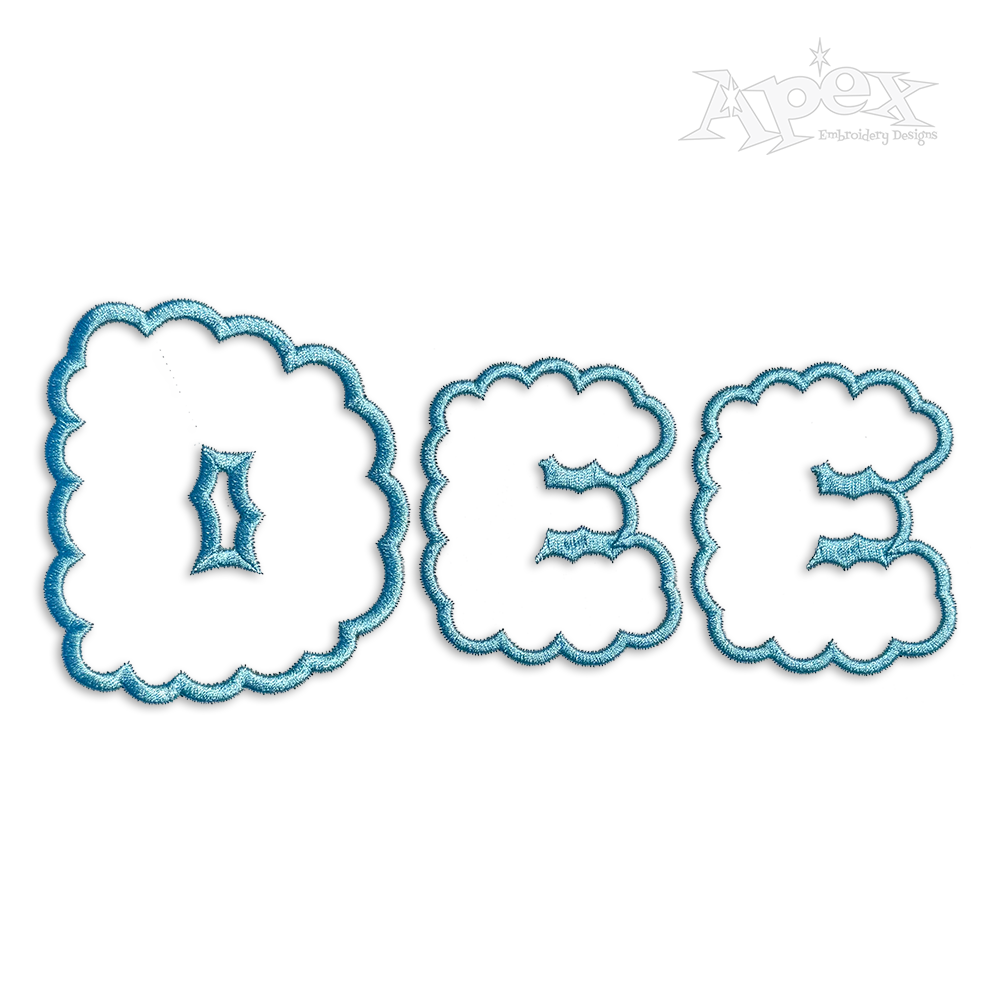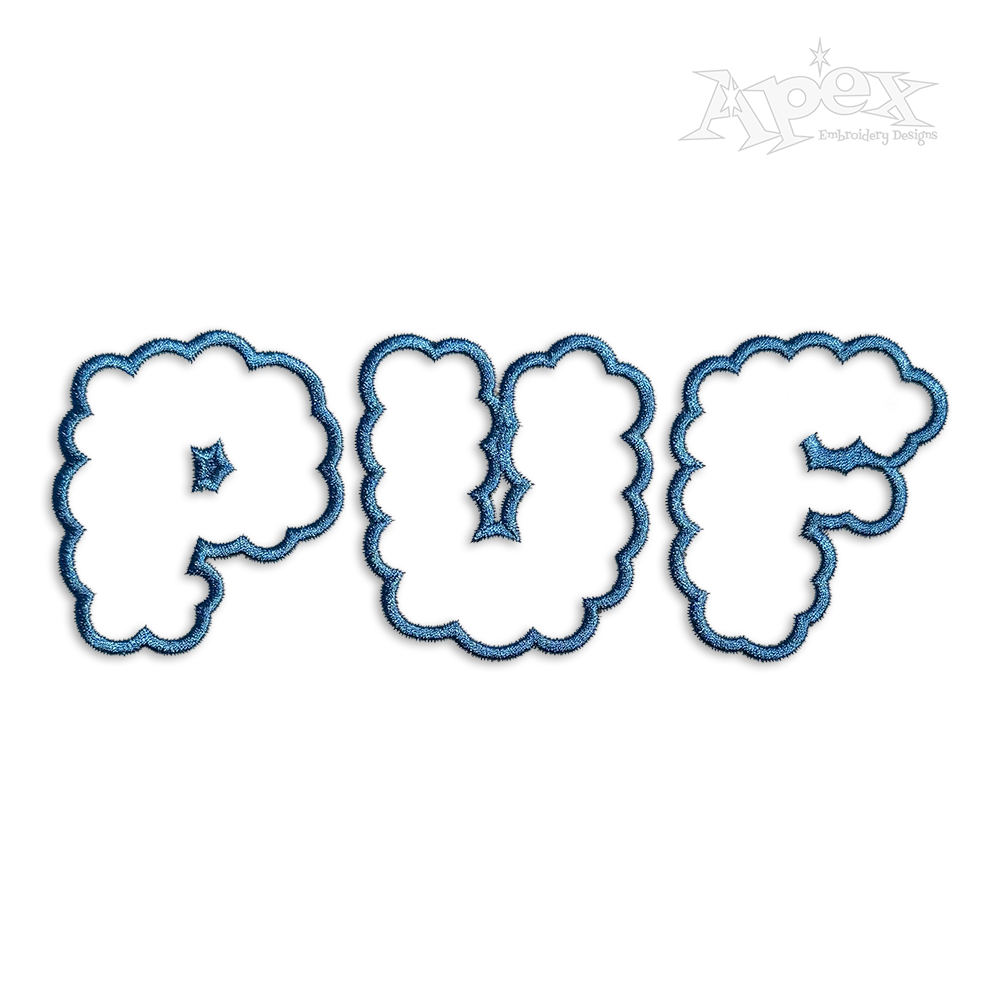
Cloud Embroidery Font
Inspired by billowing summer skies and the playful, graphic energy of modern pop typography, the Cloud Embroidery Font was designed to bring pure buoyancy to your needlework. In digitizing this collection, our studio sought to capture the soft, marshmallow-like contours of drifting clouds while retaining sharp structural integrity on the hoop. Each character blossoms with rounded, pillowy outlines that feel both effortlessly youthful and artfully composed, elevating everyday textiles into tactile, personalized statements full of levity and charm.
Project Ideas for Cloud Embroidery Font
With its friendly, pillowy architecture, this alphabet adapts effortlessly across casual streetwear, nursery keepsakes, and cheerful resort accessories:
- Custom Streetwear & Loungewear: Transform heavyweight fleece hoodies, relaxed drop-shoulder crewnecks, and ribbed knit beanies with custom names or playful monograms.
- Heirloom Nursery Essentials: Stitch dreamy monograms onto quilted crib blankets, linen diaper caddies, and plush waffle-weave baby towels.
- Bespoke Resort & Beach Gear: Embellish oversized terry-cloth pool towels, canvas boat totes, and sun visors with vibrant, sunny lettering.
- Personalized Gifting: Create charming travel cosmetic bags, bridal party sleepwear sets, and custom birthday keepsakes that feel delightfully custom-made.
The volumetric quality of the Cloud Embroidery Font gives it an arresting visual presence, making thoughtful placement essential to let the design breathe:
- Center Chest: Place names or single-letter monograms directly across the center chest of sweatshirts and tees for a balanced, casual silhouette.
- Off-Center Corner Diagonal: Orient a single initial diagonally across the lower corner of a linen throw, accent pillow, or tote bag for modern visual interest.
- Back Yoke or Shoulder Arc: For larger 4-inch letters, arrange words along a subtle arch across the upper back of denim jackets or windbreakers.
- Brim & Cuff Accents: Utilize the 2-inch size tucked along the folded cuff of a beanie or above the pocket hem of a denim shirt for an understated artisan detail.
Cloud Embroidery Font Craft & Letterform Details
Translating inflated, cloud-like illustrations into flawless embroidery requires exceptional digitizing nuance. Rather than relying on simple stroke expansions, every curve in the Cloud alphabet has been sculpted with intentional satin stitch pathways that follow the natural swelling and tapering of billowed vapor. The outer borders boast smooth, consistent edge definitions engineered to prevent railroading or thread distortion, while the interior negative spaces are thoughtfully proportioned to remain distinct and readable even in loftier fabrics. By meticulously balancing stitch angles at every curved junction, the design creates a three-dimensional illusion of pillowy volume without over-dense underlay, ensuring your fabric moves naturally with soft, cloud-soft elegance.